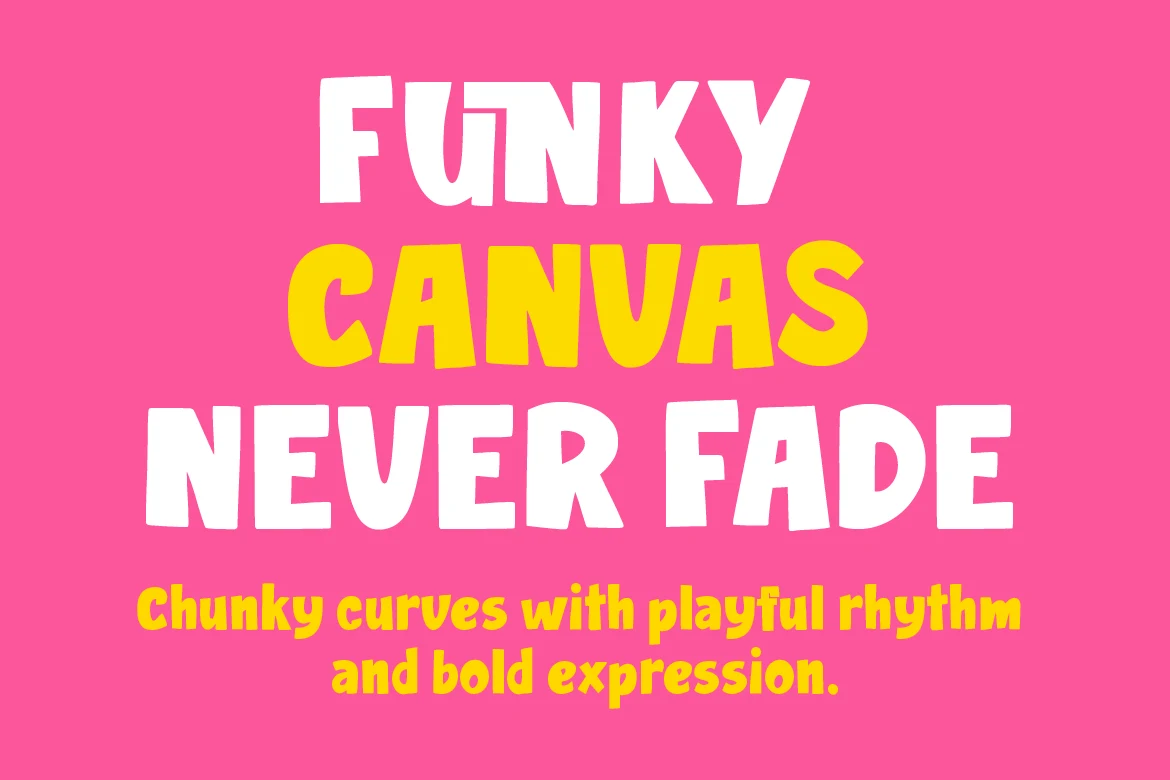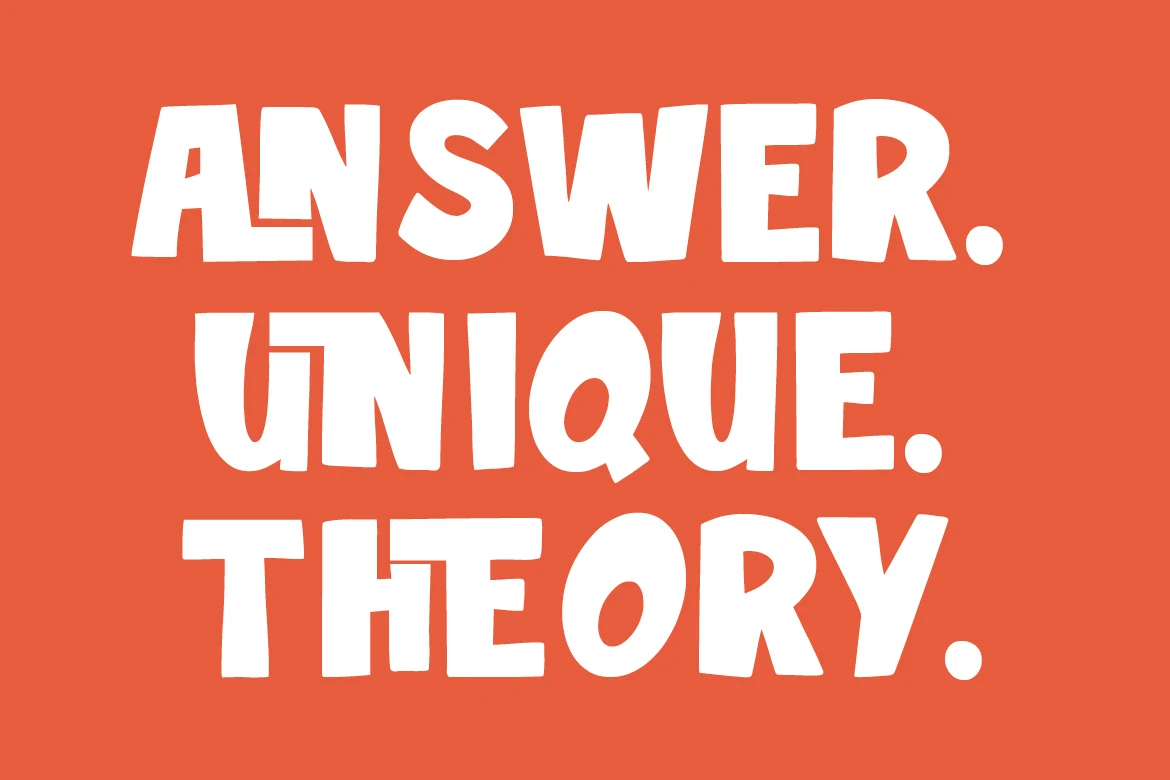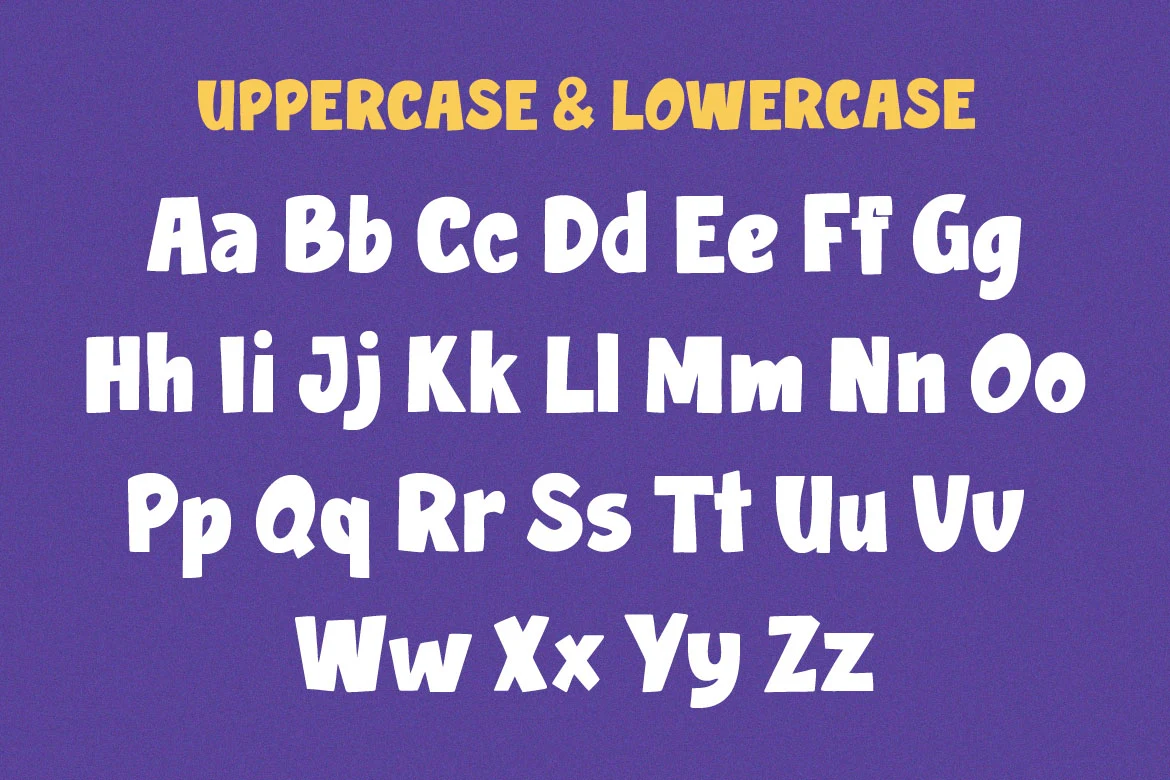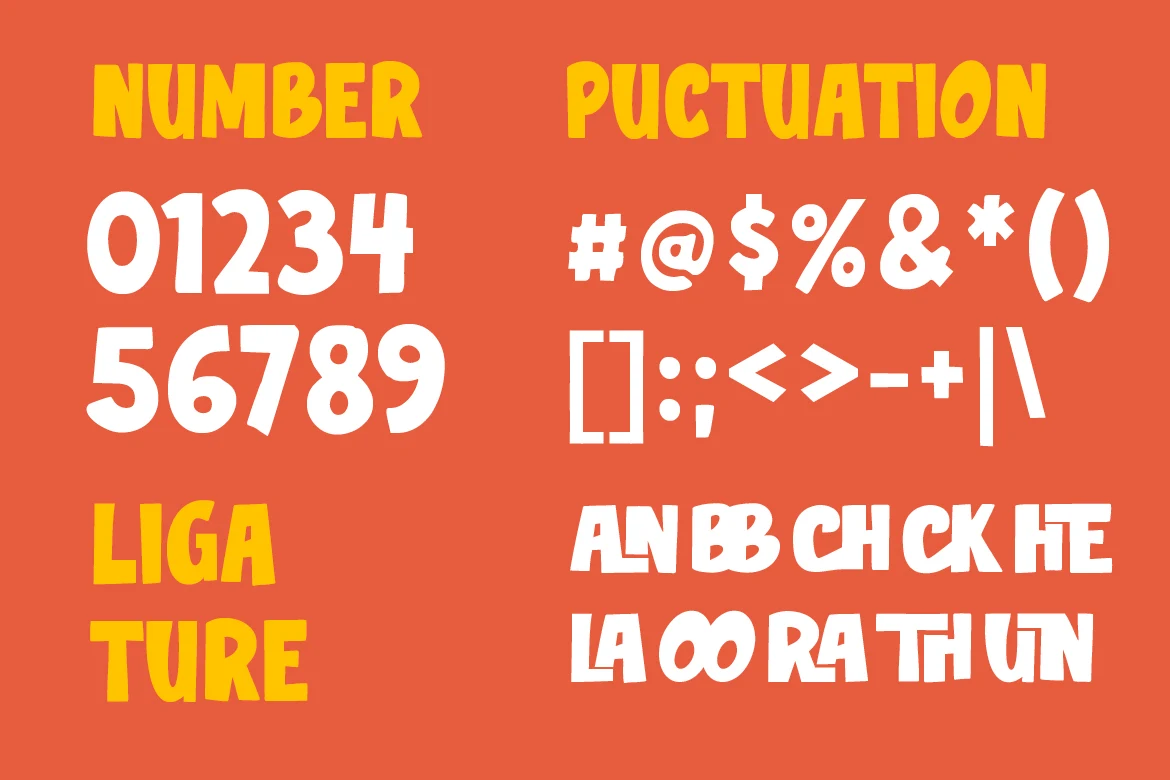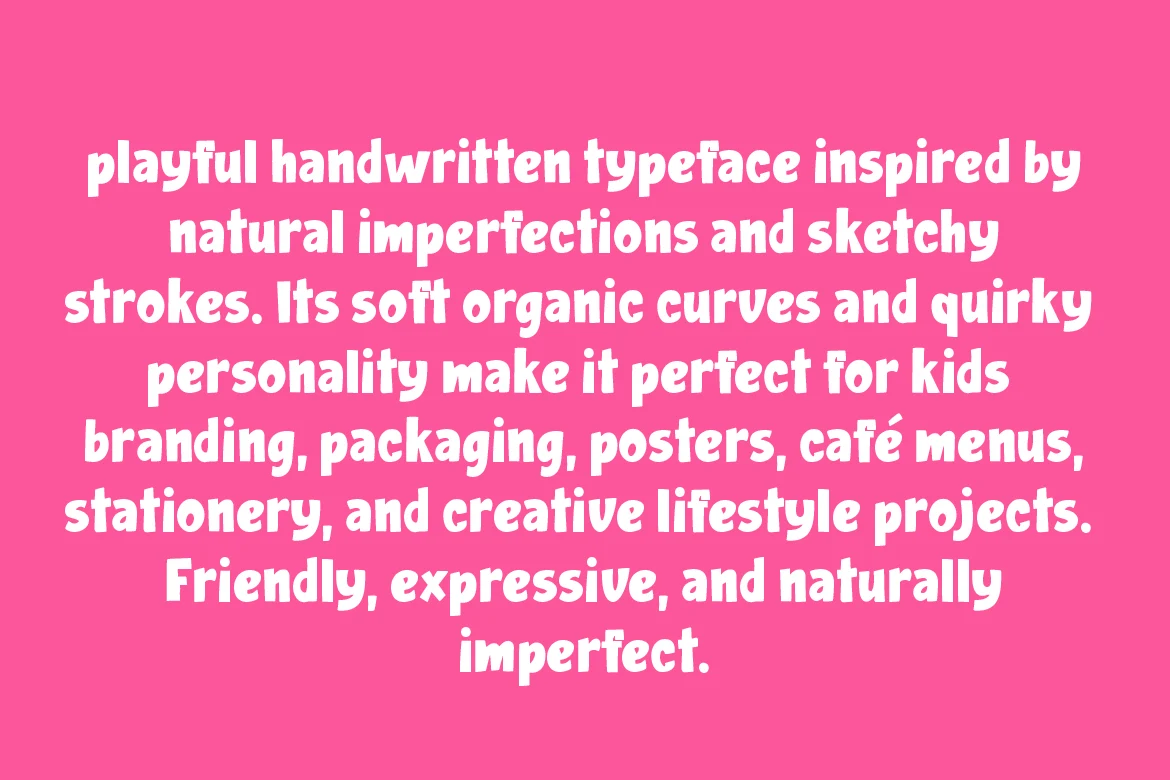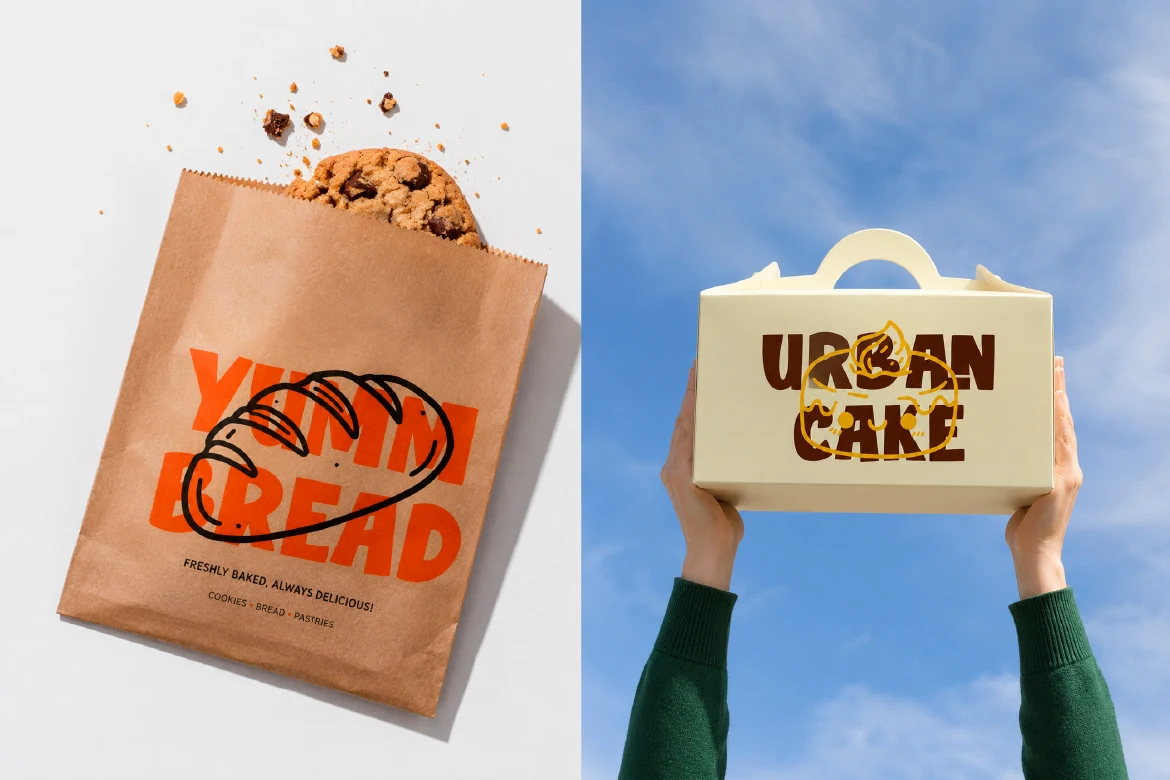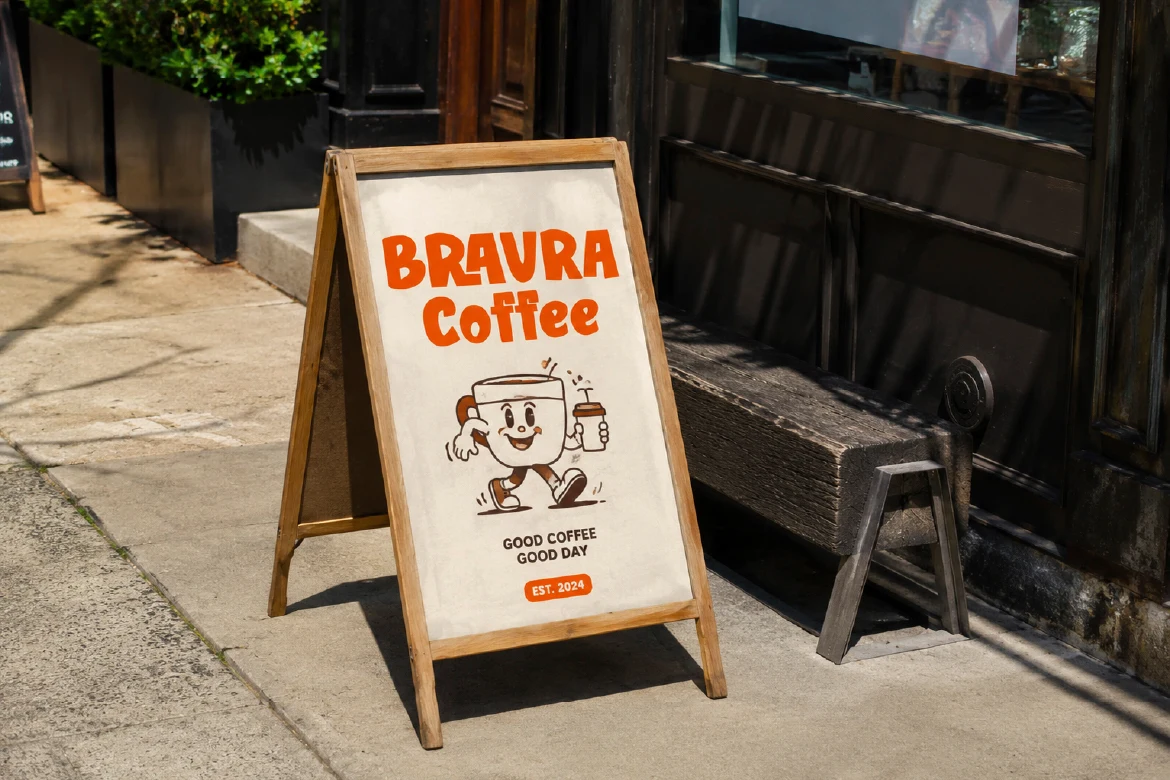
Bravra
Meet Bravra, a playful display font that celebrates the beauty of imperfection. Built with chunky strokes, irregular shapes, and an ultra-bold presence, Bravra feels like it was sketched by hand in a burst of creativity. Every letter carries a quirky personality, giving your designs an expressive and unmistakably human touch.
The bold, slightly uneven construction makes Bravra perfect for projects that need to feel approachable, energetic, and full of character. Whether you’re creating branding for creative businesses, eye-catching packaging, children’s products, poster designs, social media graphics, merchandise, or playful editorial layouts, Bravra brings a handcrafted charm that instantly grabs attention. It’s loud, friendly, and impossible to ignore.